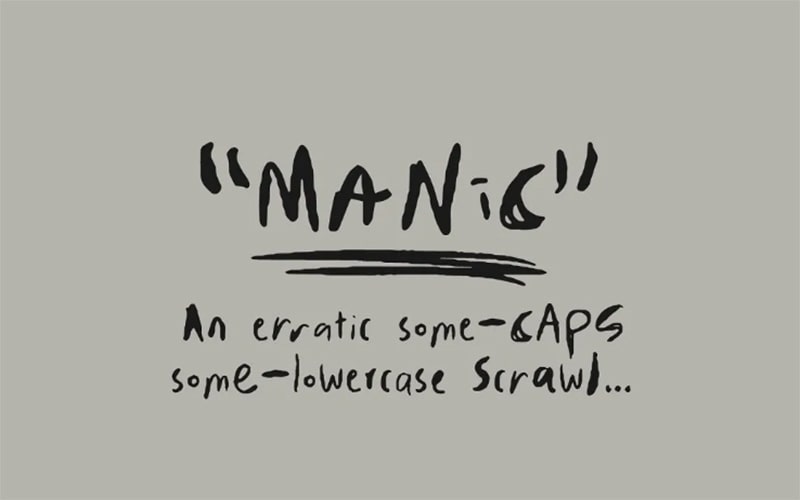
Manic Erratic Font is a great handwritten typeface. The famous designer Laura Eddy took charge of creating this font for the first time. This stunning font consists of stylish and effective characters.
It supports multiple languages such as Afrikaans, Albanian, Catalan, Danish, Dutch, English, Estonian, Finnish, French, German, Italian, Norwegian, Portuguese, English, Swedish, and Zulu.
This fantastic font comes with all of Basic Latin, Latin-1 Supplement, General Punctuation, and Letterlike Symbols, with 48 numbers of glyphs and 1000 units per EM.
This amazing typeface has 26 uppercase and lowercase letters, punctuation marks, and numerals ranging from 0 to 10. Let’s look at its lovely texture.
Manic Erratic Font
This top-notch typeface enhances the polished appearance of your work. Its fashionable design makes it ideal for a range of lovely word combinations